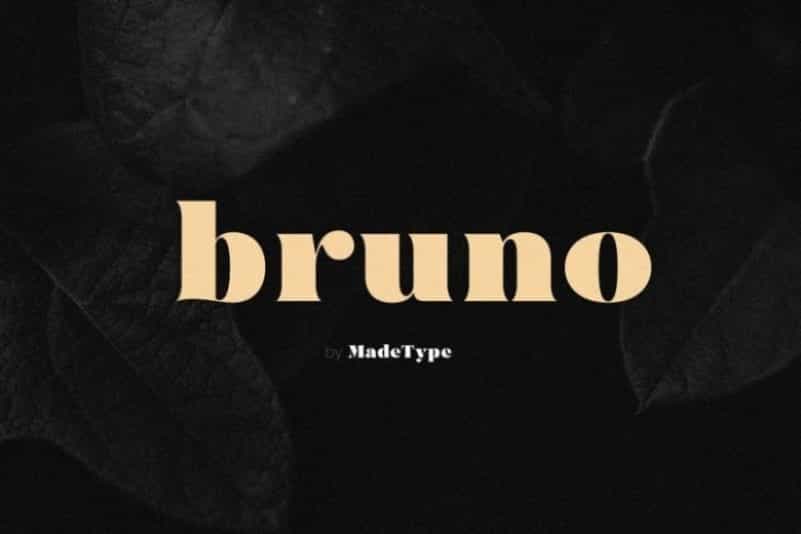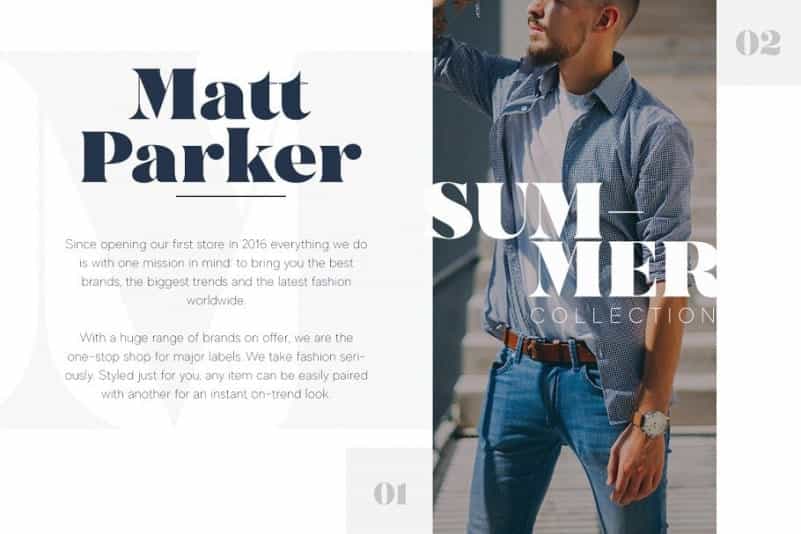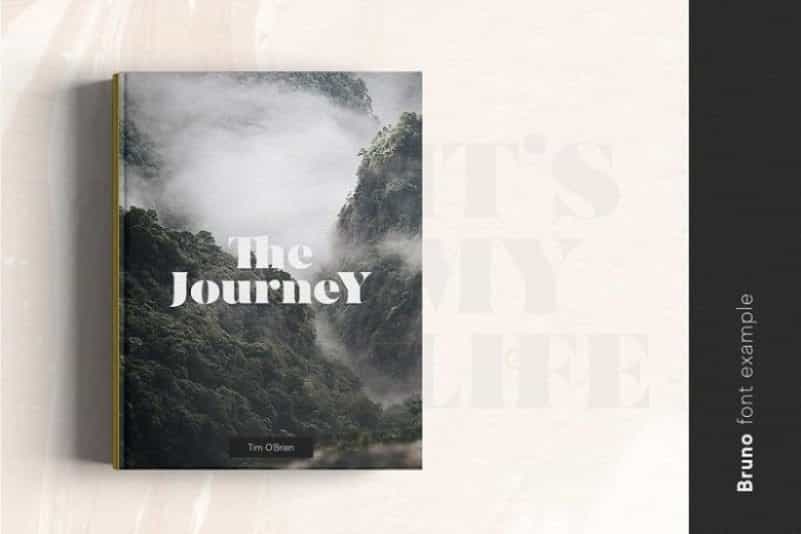
MADE Bruno is a modern classic serif typeface that has an individual look in every single letter. The Bruno will perfect for many project: fashion, magazines, logo, branding and photography are all example of the things that can be designed. Wedding invitations , quotes blog header , posters advertisements etcetera.